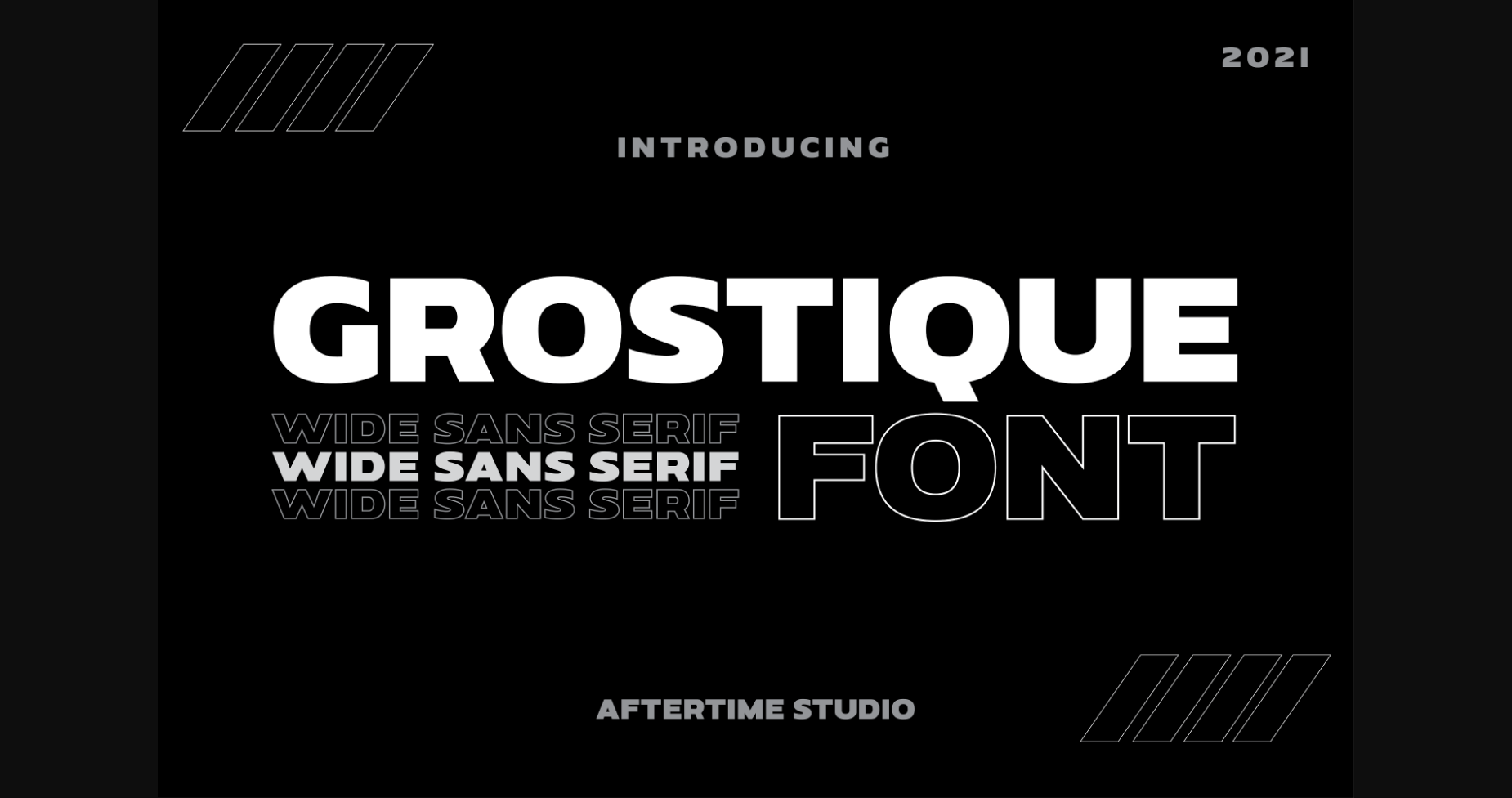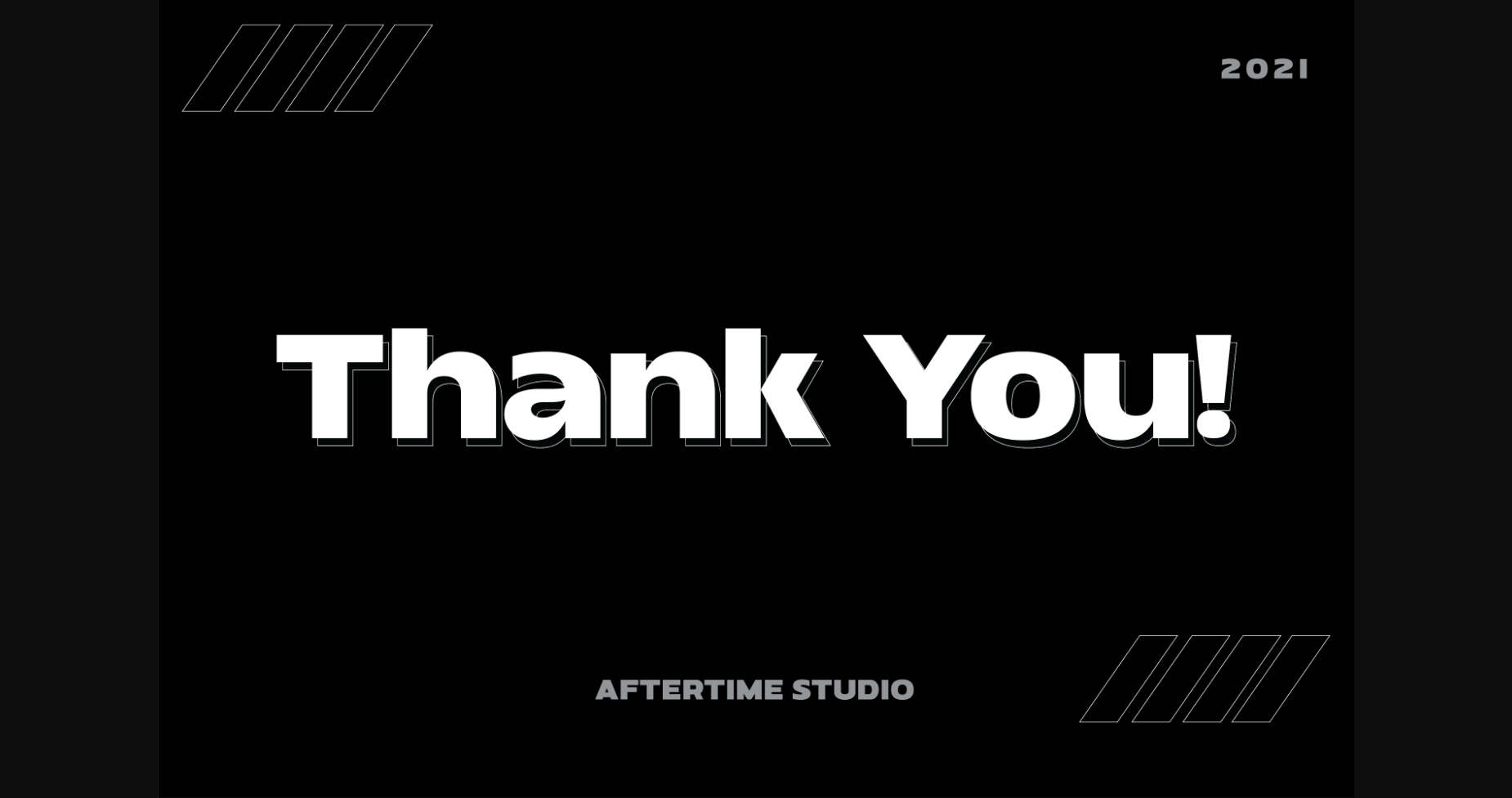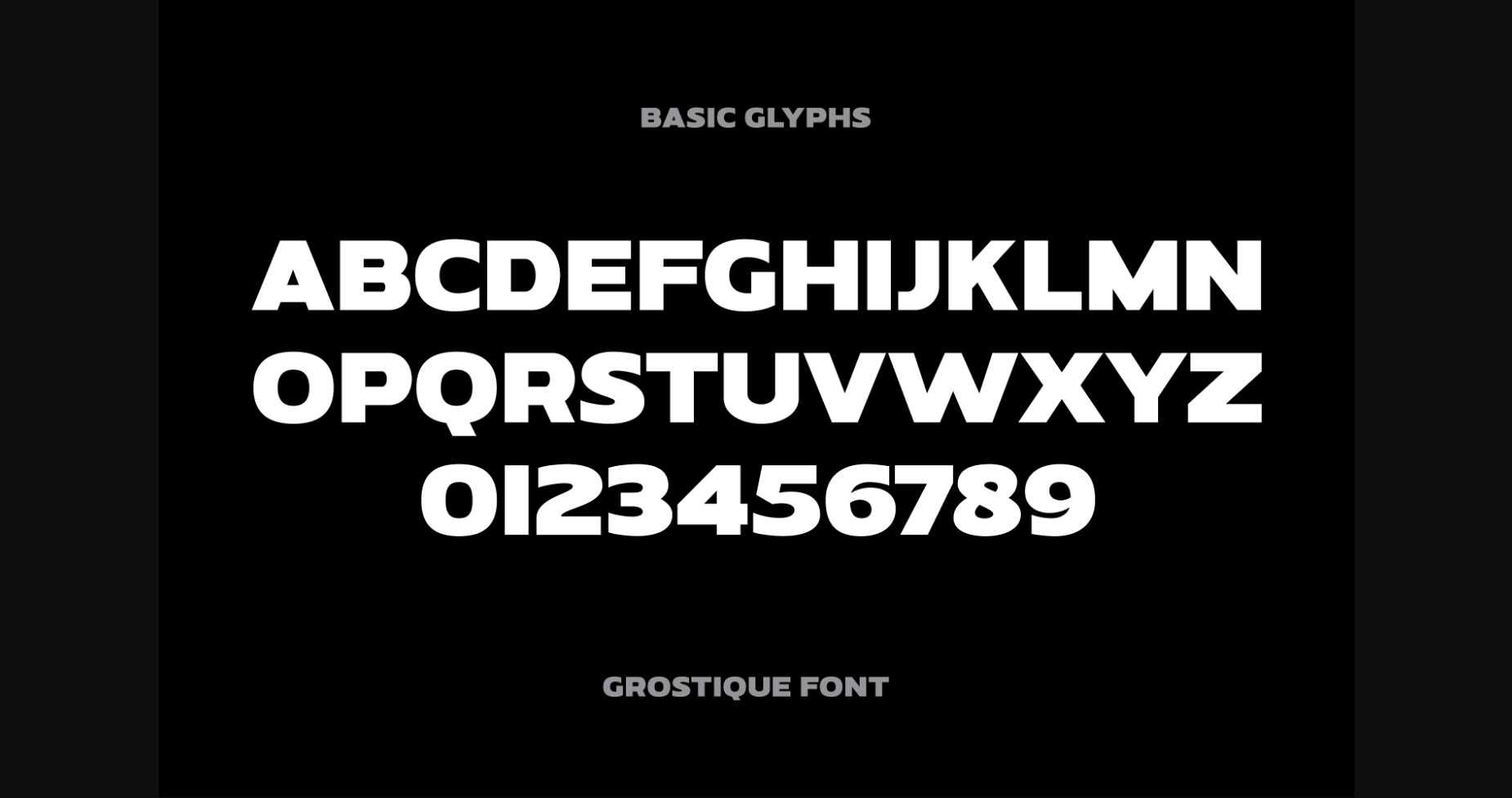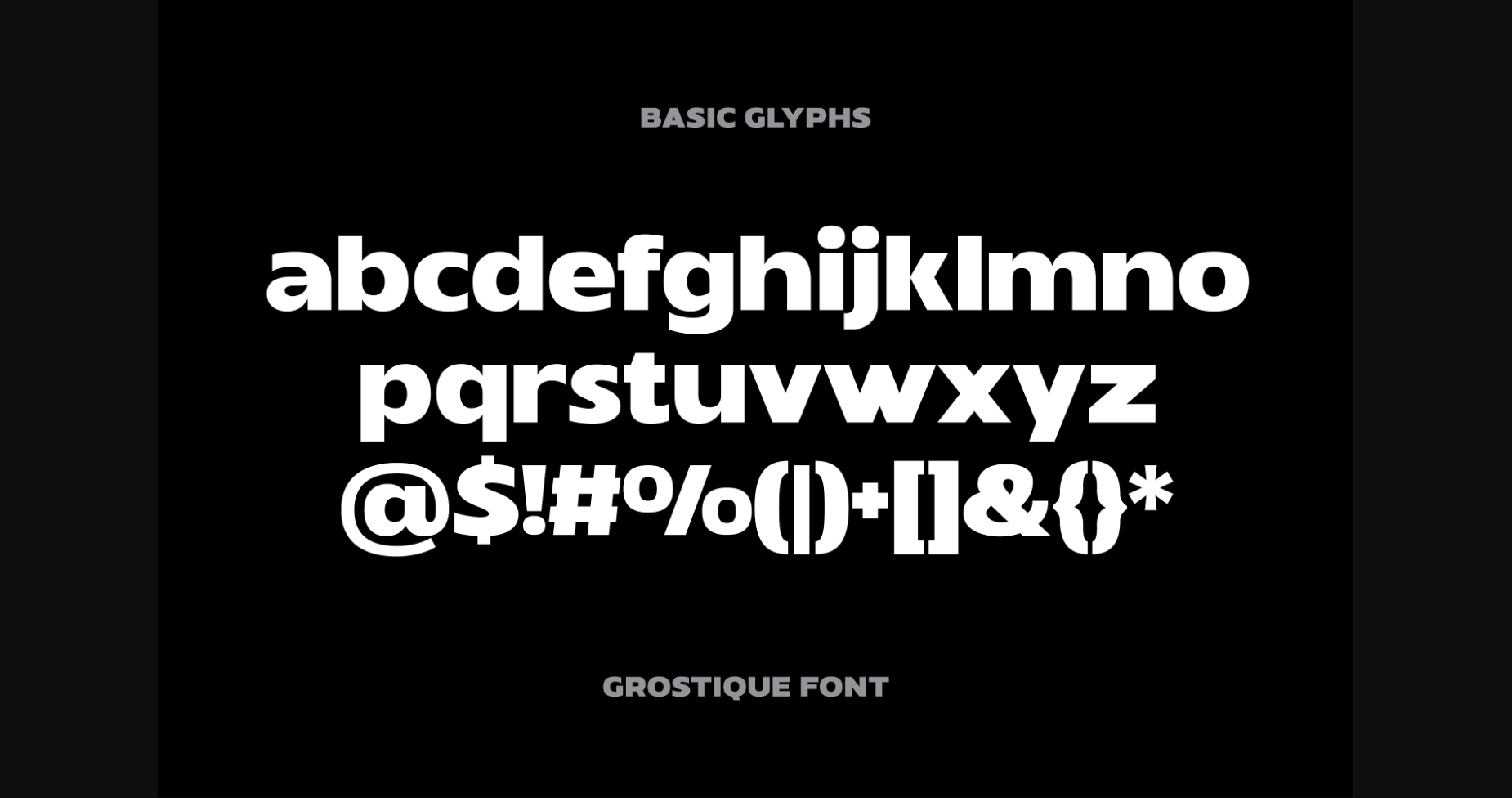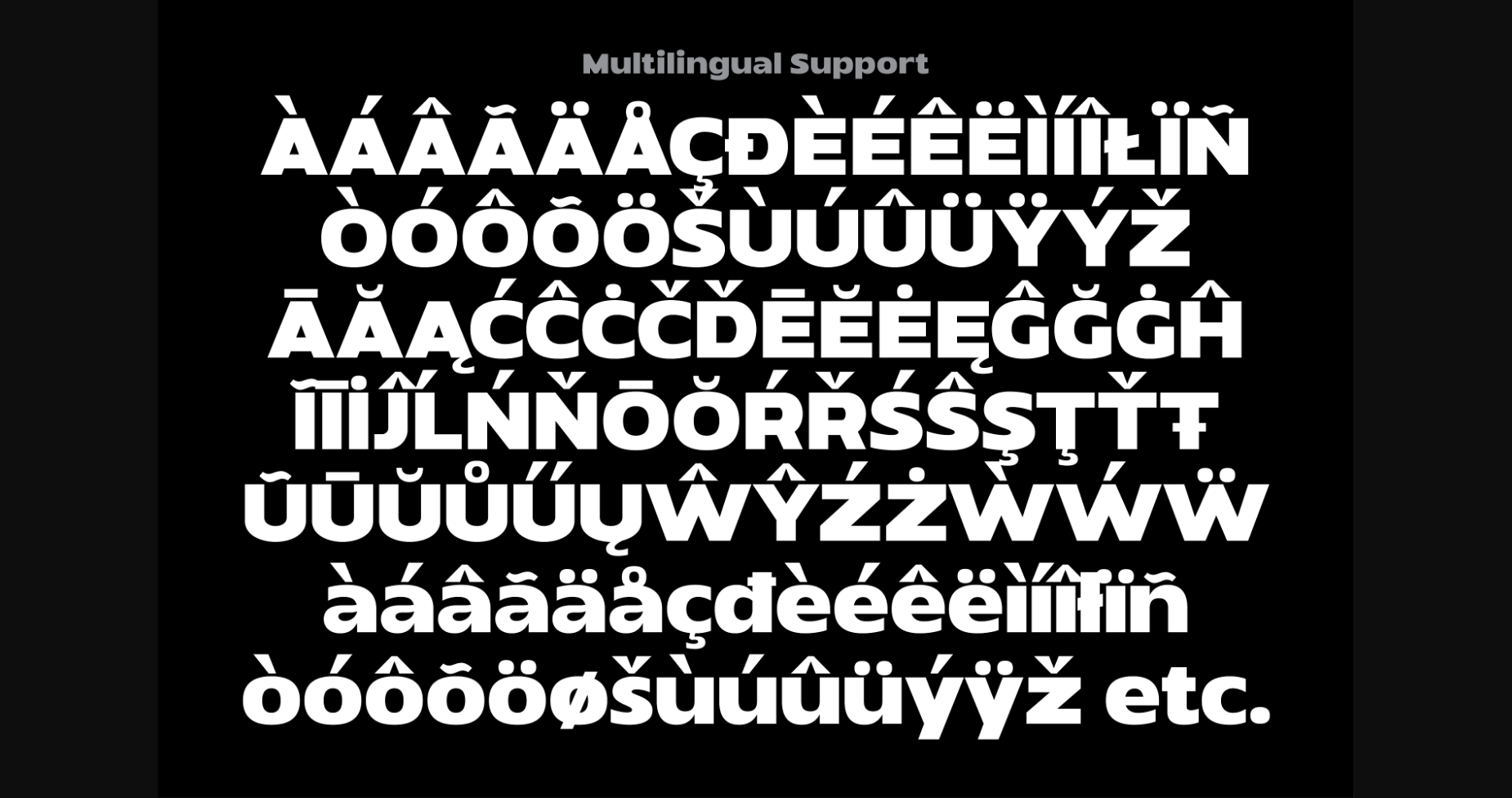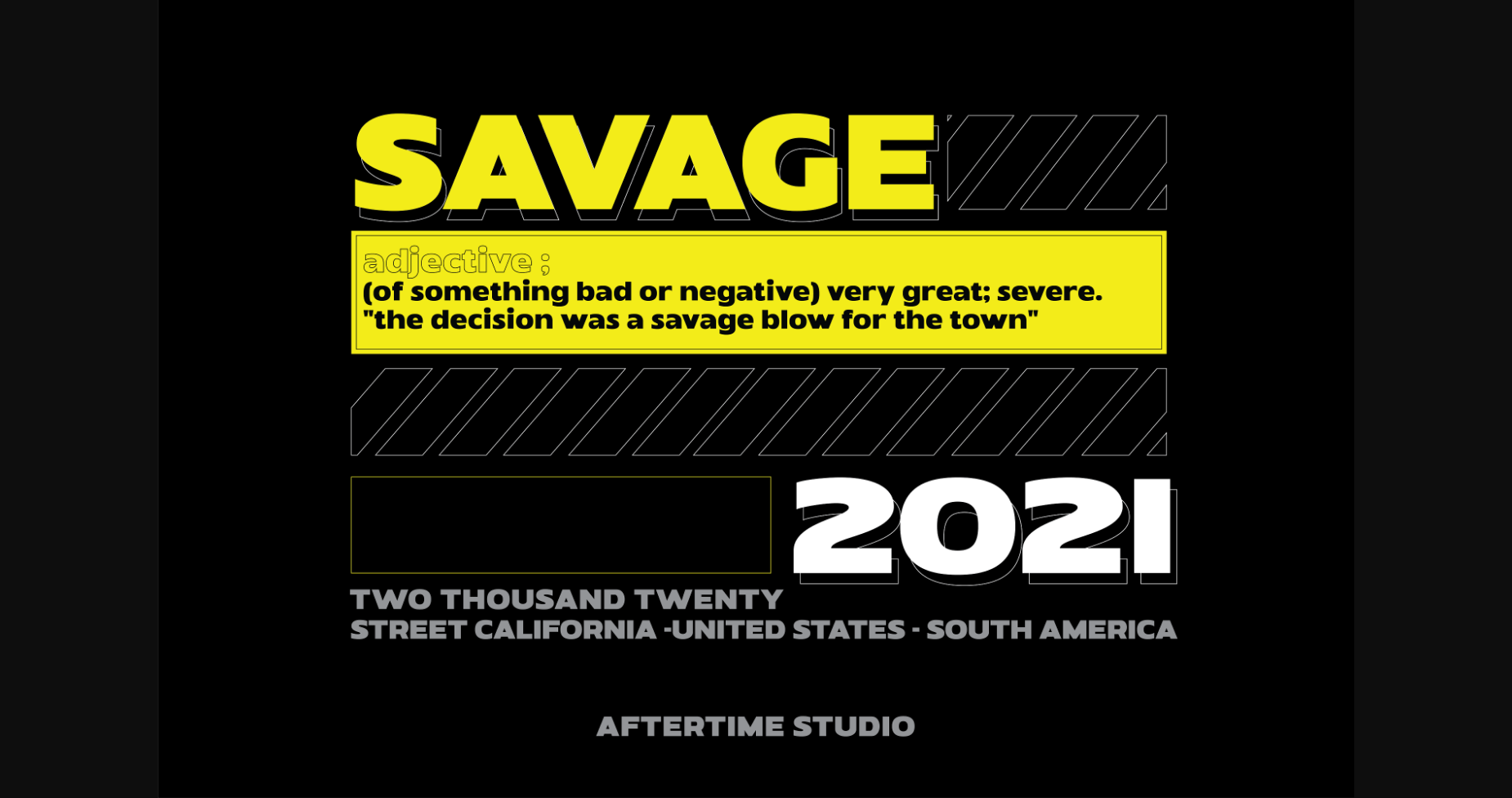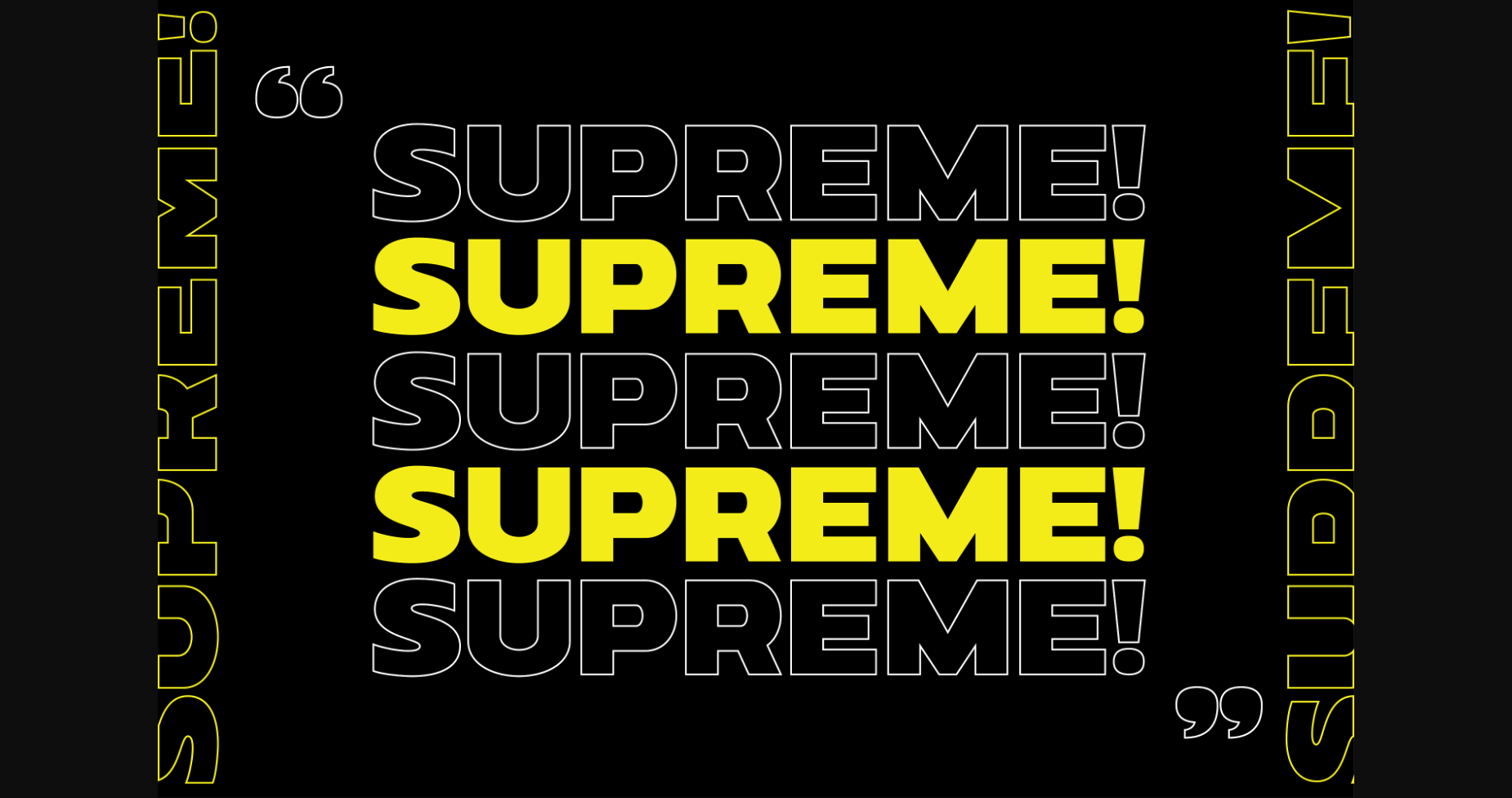
Grostique Font
About Grostique Font
Grostique is a bold and solemn sans serif font, perfectly suitable for daring projects that need an outstanding appearance. It works best on streetwear designs, logo branding, editorial designs, music posters, modern advertising campaigns, and many more.